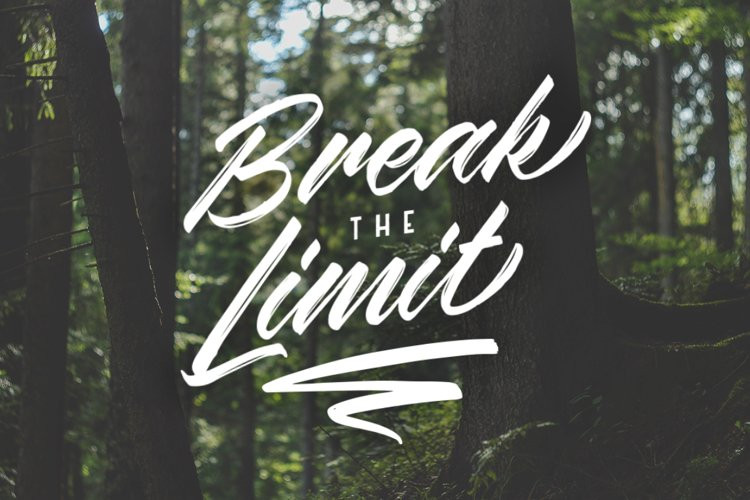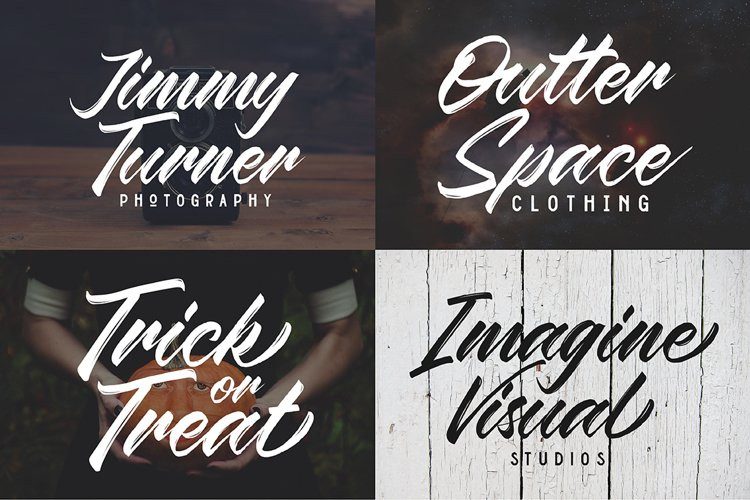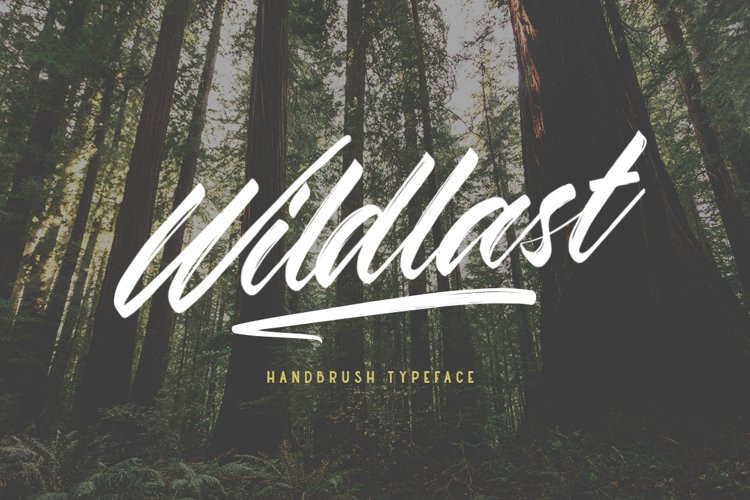
Wildlast Font
Wildlast FontWildlast is a script font with a natural bruhpen touch and made by hand. They have a rough and brave character. Suitable and applicable to create typography design, christmas card, branding, logos, product packaging, invitation, qoutes, t-shirt, label poster etc.